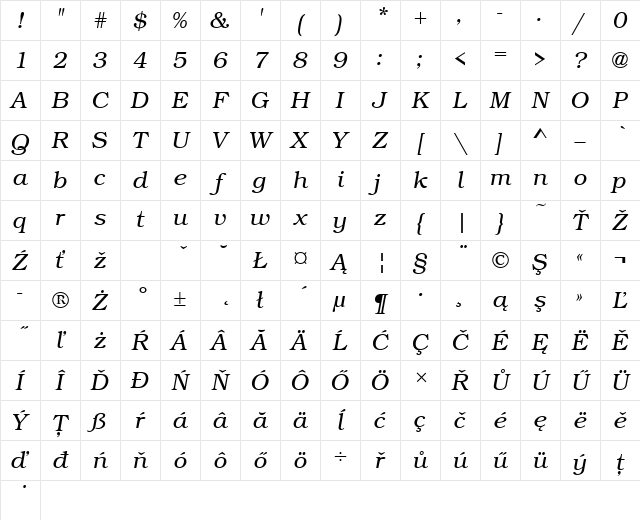
Complete BookmanItcTEELig Italic glyph index. Displaying only characters natively supported by BookmanItcTEELig Italic font.
BookmanItcTEELig is a composed and adaptable typeface that performs quietly and consistently across a wide range of design contexts. The slanted form adds forward momentum and visual energy.